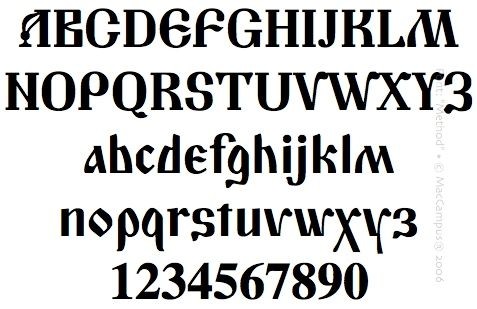
Method (Cyrillic Old Church Slavonic)
(Altkirchenslawisch, Altrussisch, Altbulgarisch, Altserbisch,
Old Russian, Old Bulgarian, OCS, Old Serbian)
Slavic Cyrillic including historical extensions and accents (titlo etc).
The classic design for academic typesetting of OCS grammars, text-books, editions, papers, presentations.
Bonus features: font has a matching Latin alphabet built-in! For mixed headers etc.
"Method Alt" (included) has many design variants. Picture does not show the full character set!